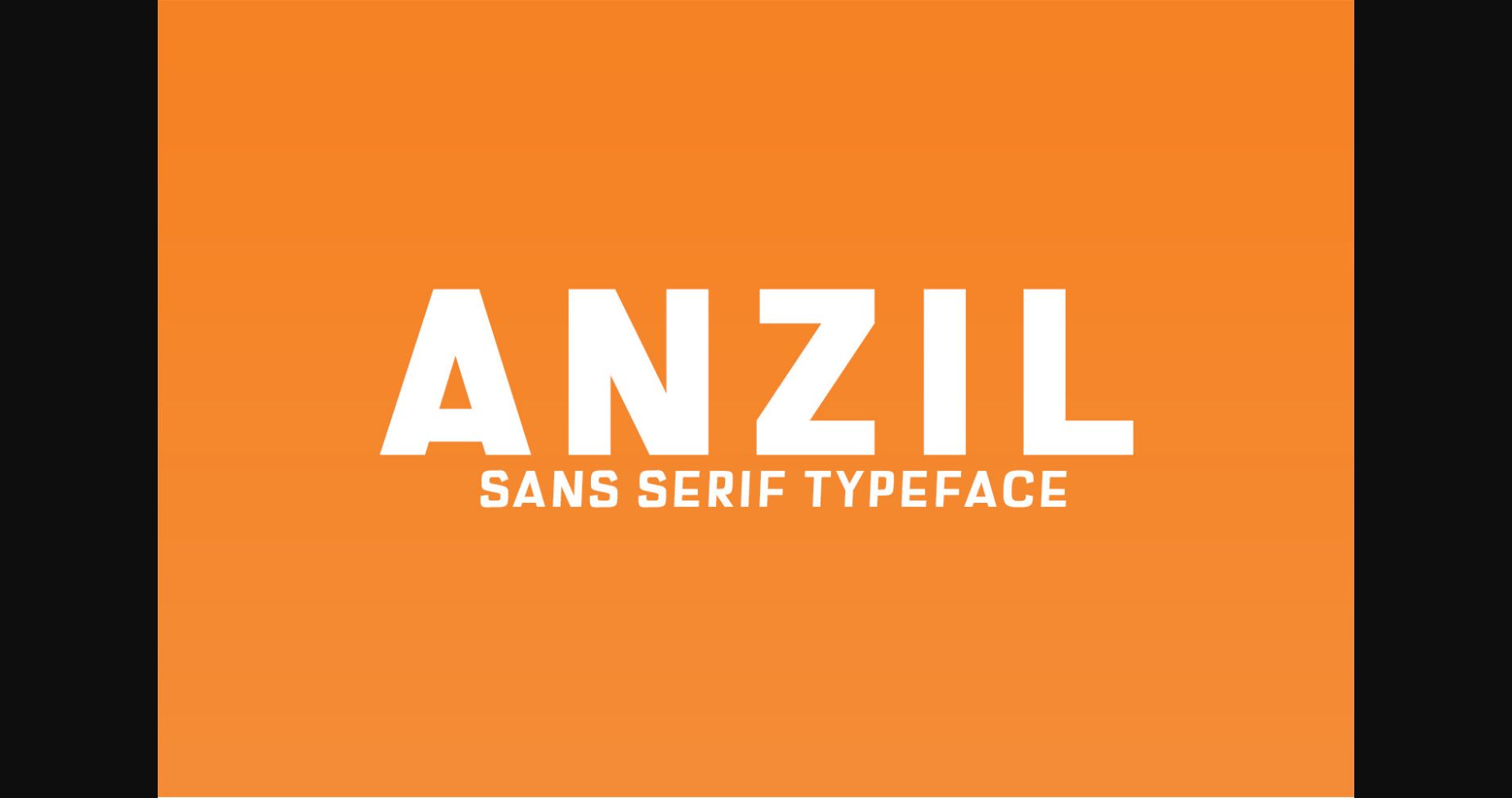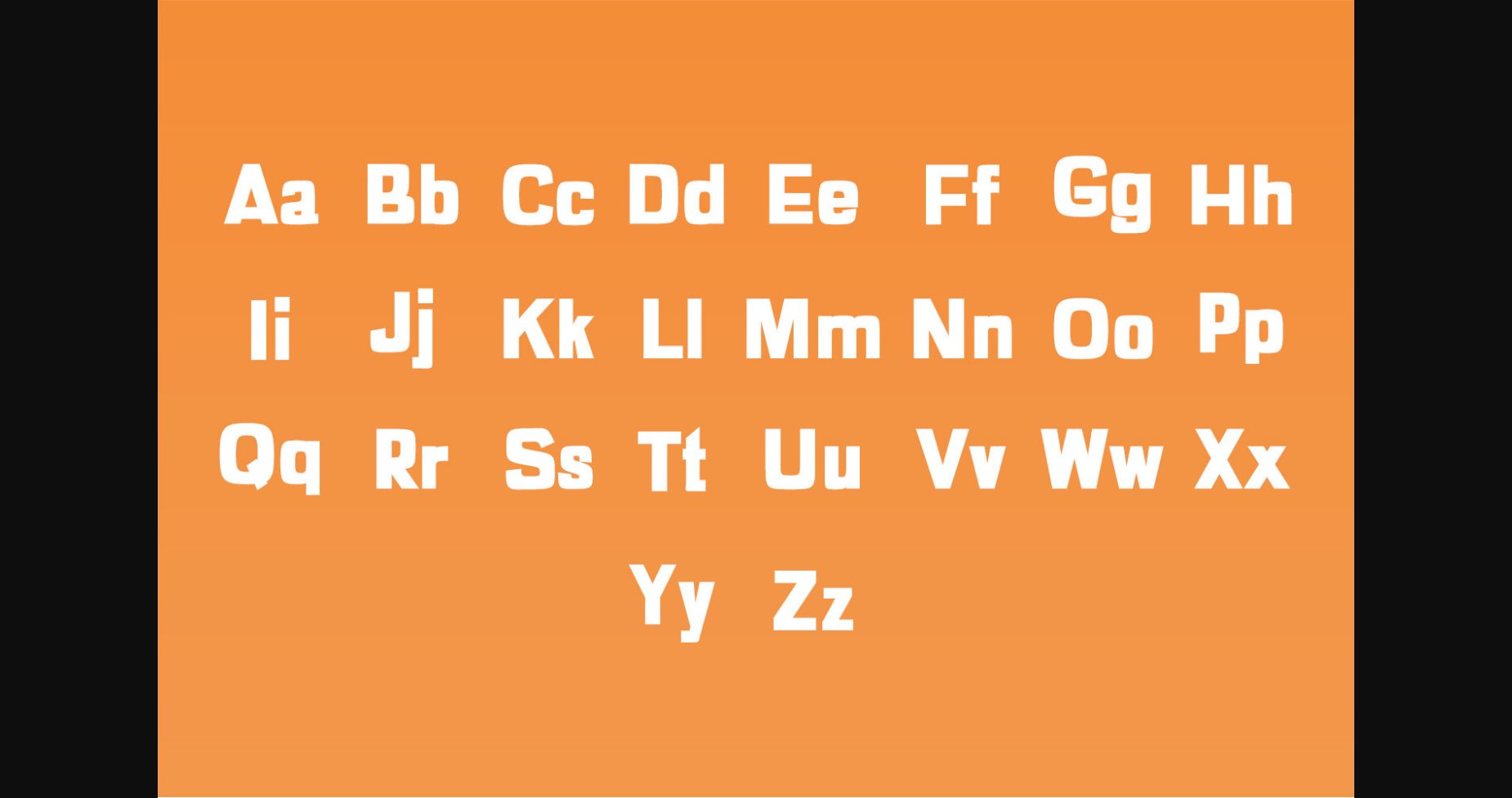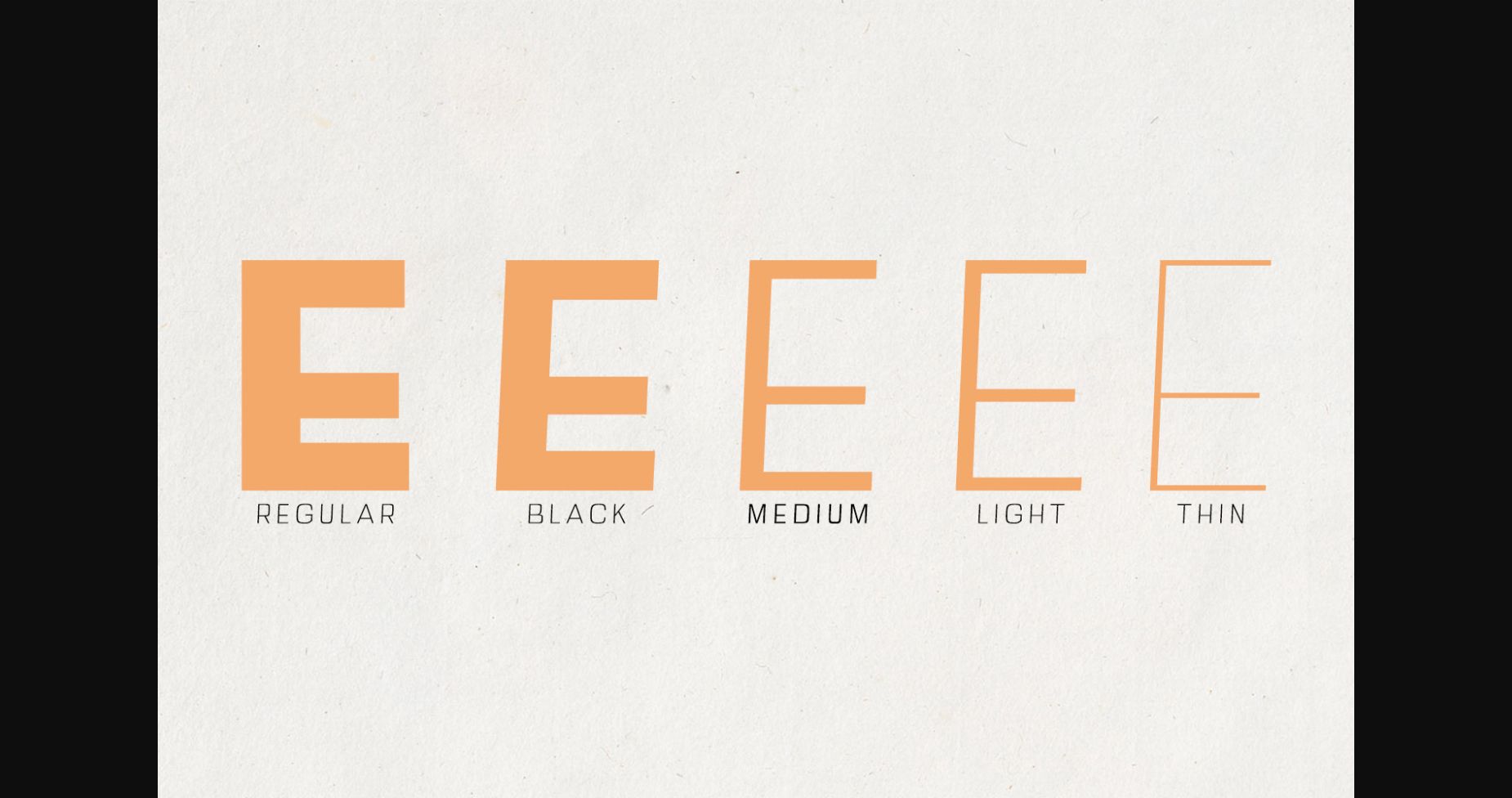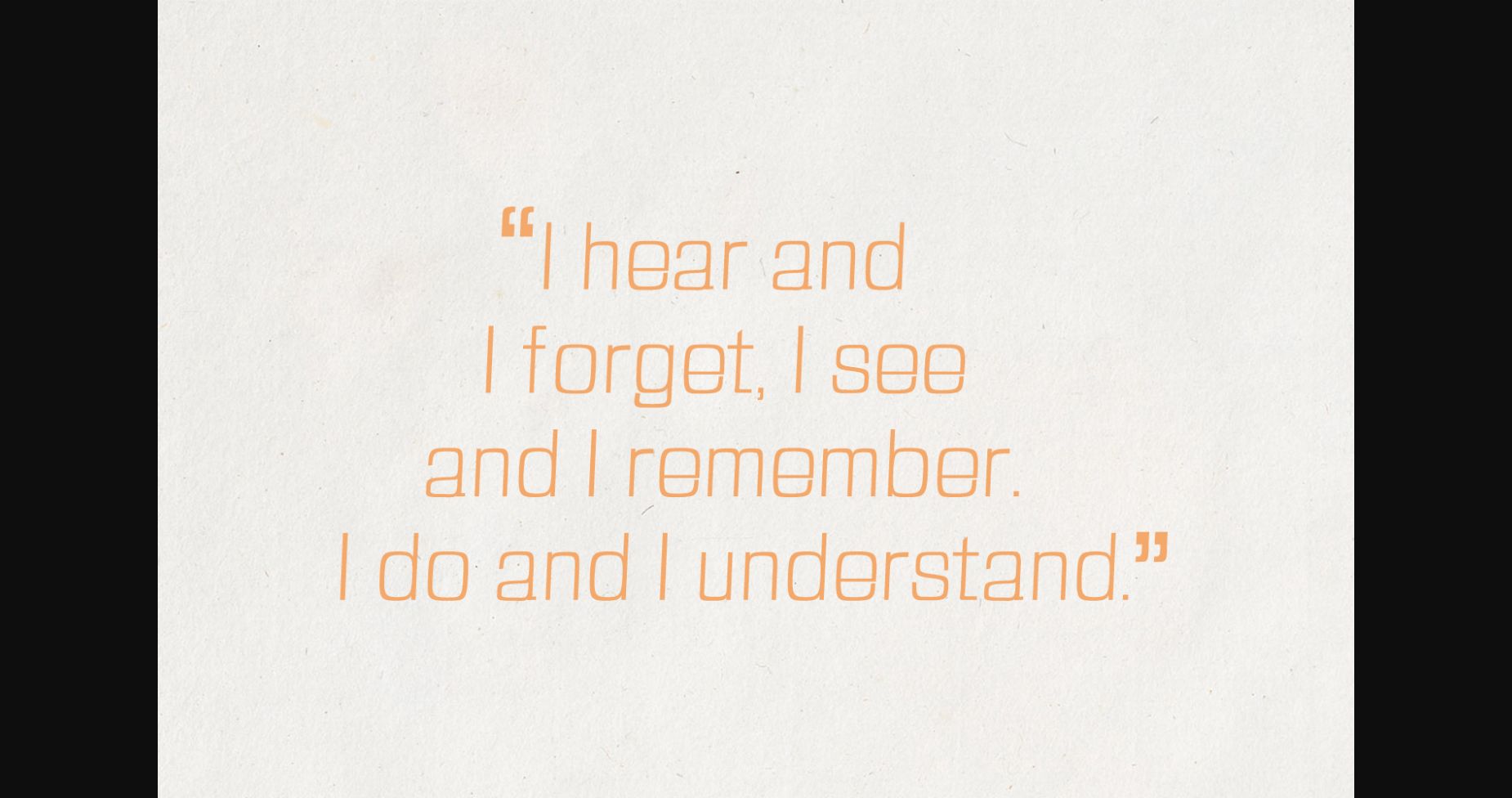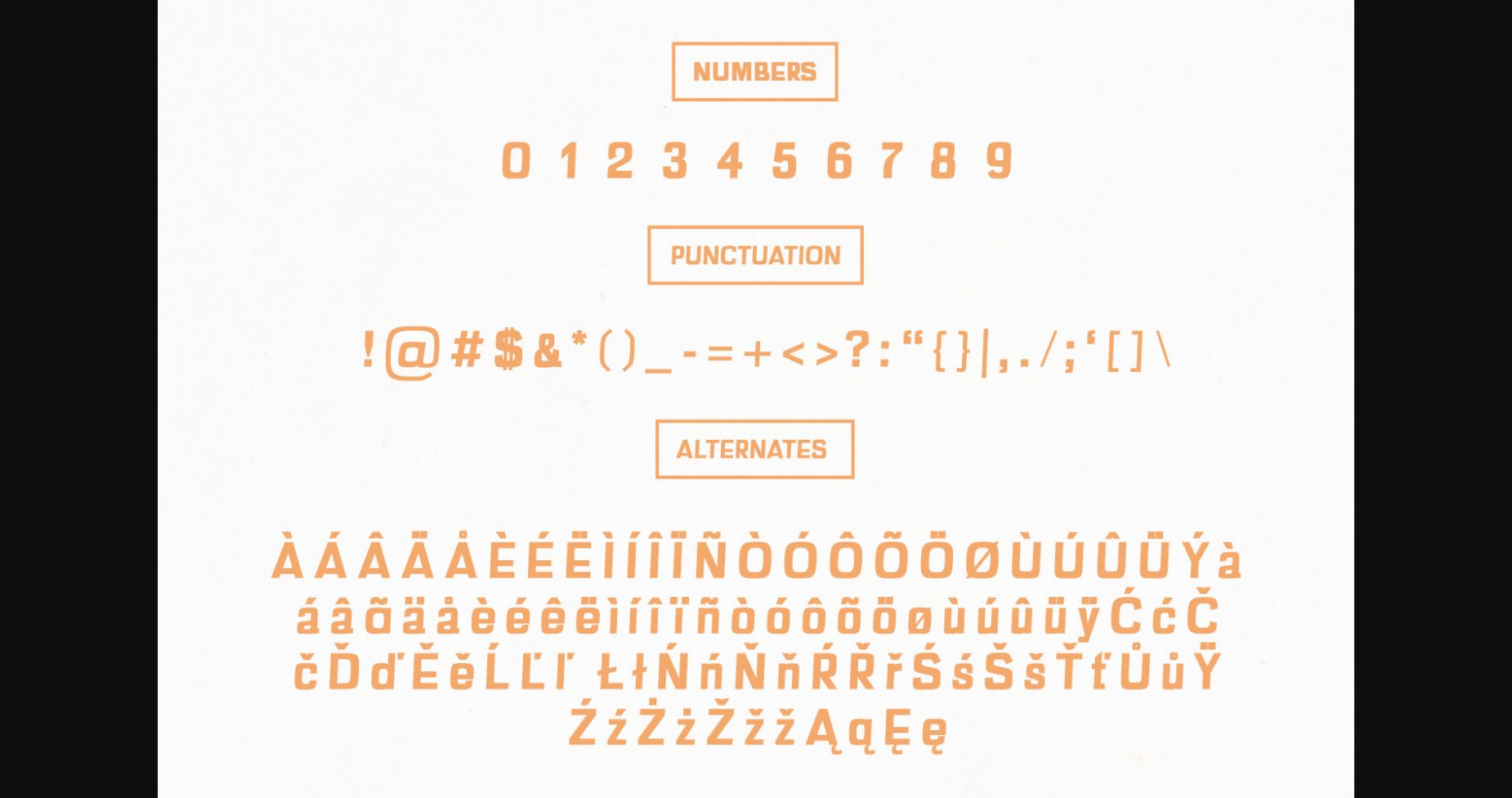
About Anzil Family Font
Anzil is a bold and chunky sans serif font family, perfectly suitable for words that need to stand above the background. Use it confidently for your creative projects, and the results will impress you!